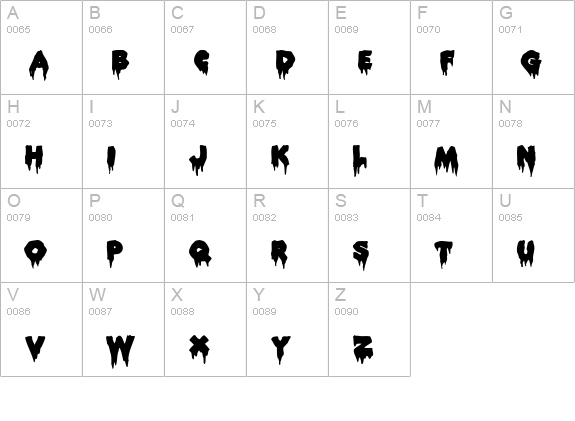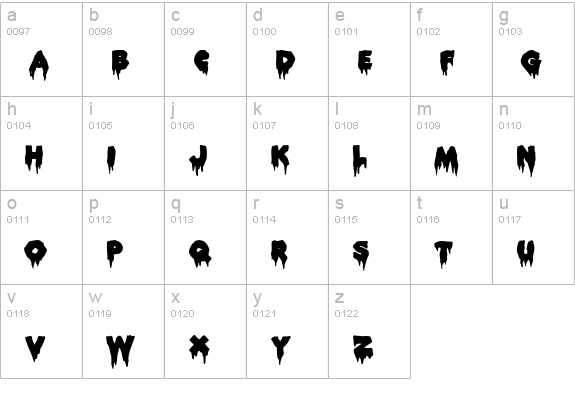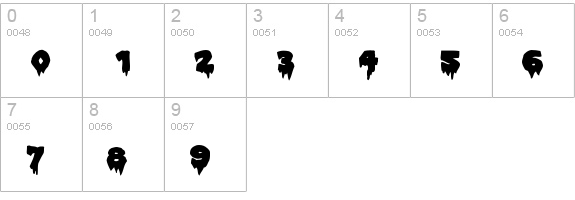
ROCKY AOE Font Details
ROCKY AOE font is a bold and rugged typeface that exudes strength and power. With its sharp edges and solid appearance, this font is perfect for creating impactful designs that demand attention. Whether you're working on a poster, logo, or branding project, ROCKY AOE font will make your text stand out with its unique style. What's even better is that ROCKY AOE font is available for free download at FontsMarket.com. So you can easily access this eye-catching font and use it in your creative projects without any cost. Don't miss out on the opportunity to add ROCKY AOE font to your design arsenal and make a lasting impression with your typography. Download it now and see the difference it can make in your designs!